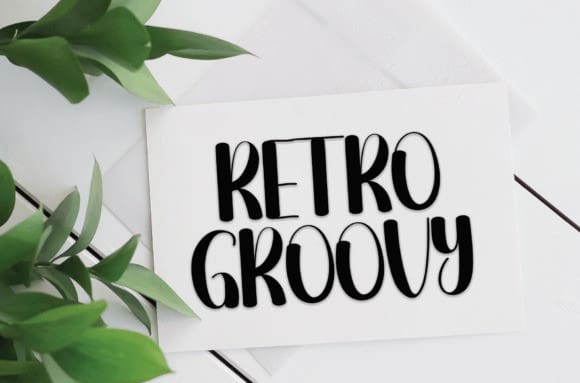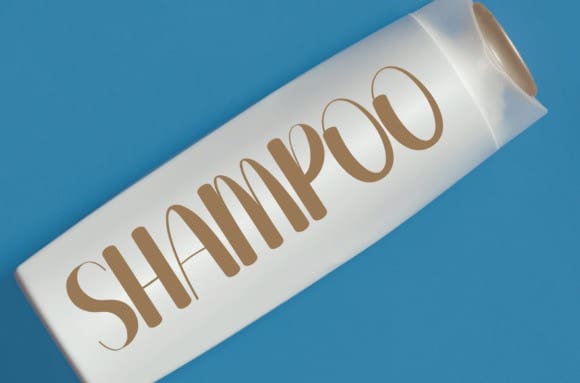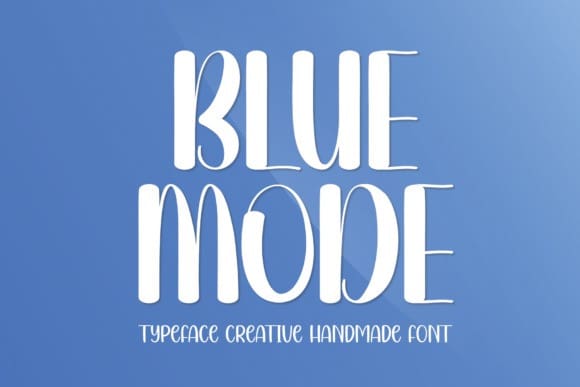
Blue Mode Font
Blue Mode Font is a sweet and friendly handwritten font. Fresh and neat, this font is ideal for writing wedding invitations, cards, or any other design that might need a fun touch!